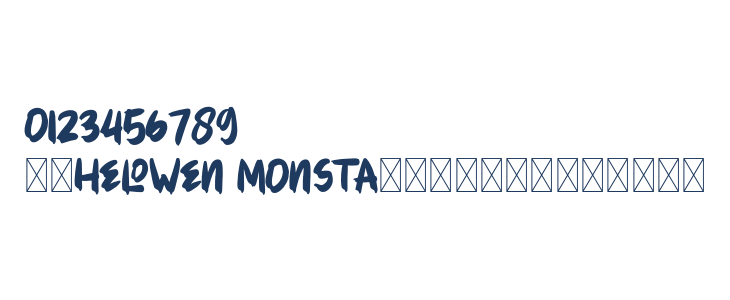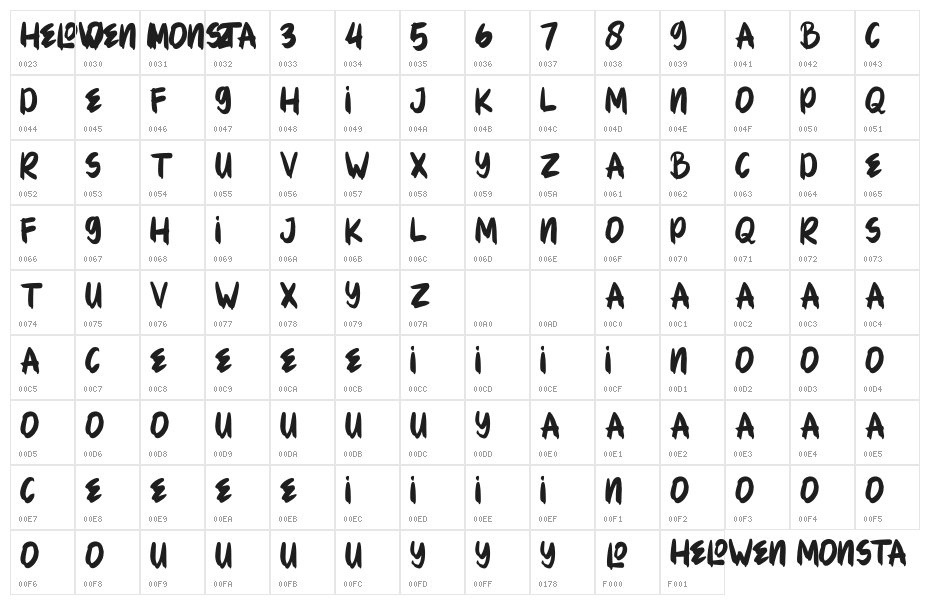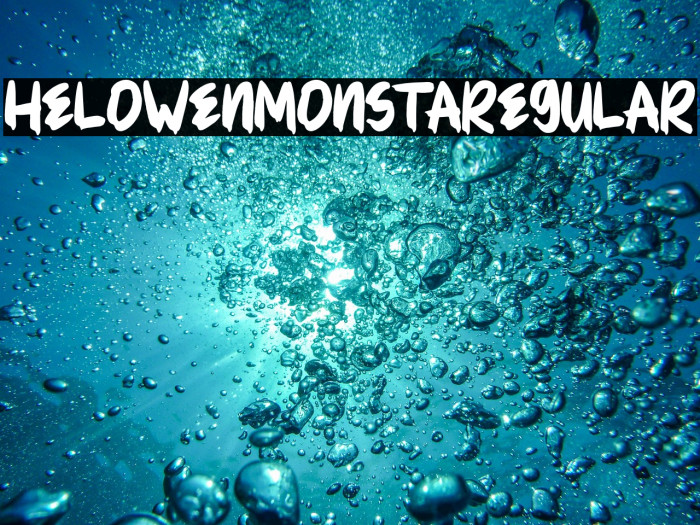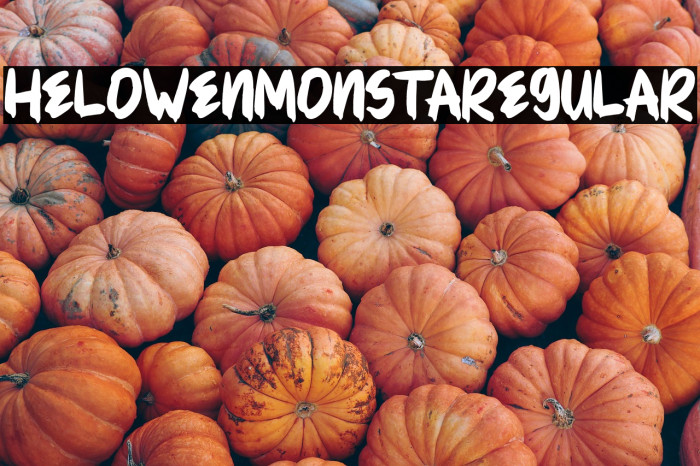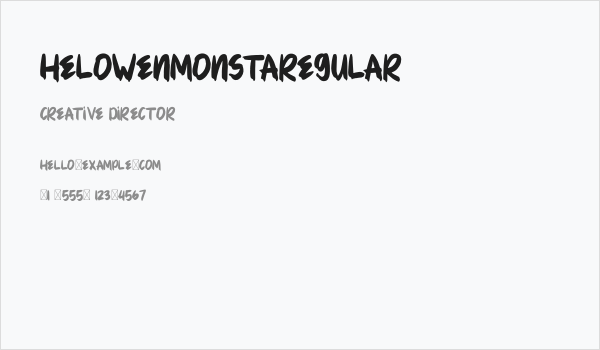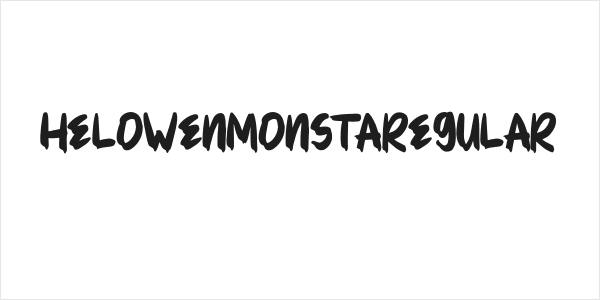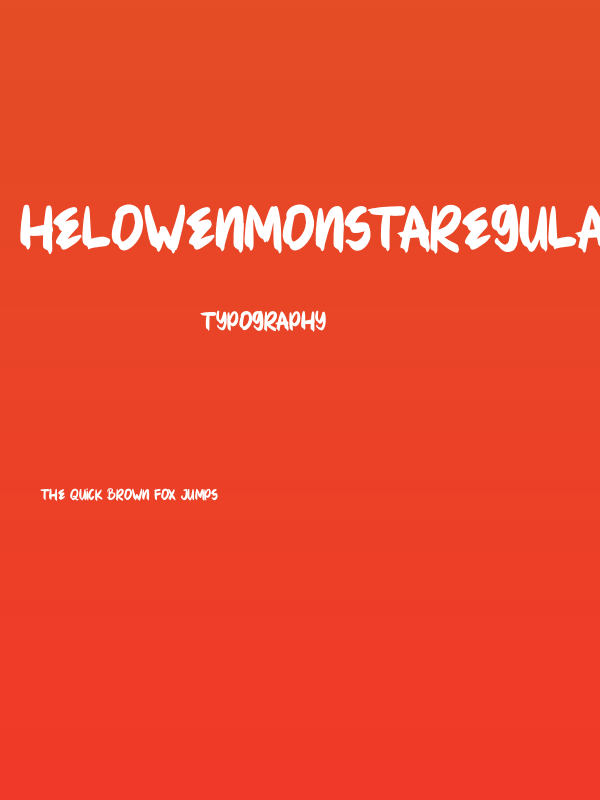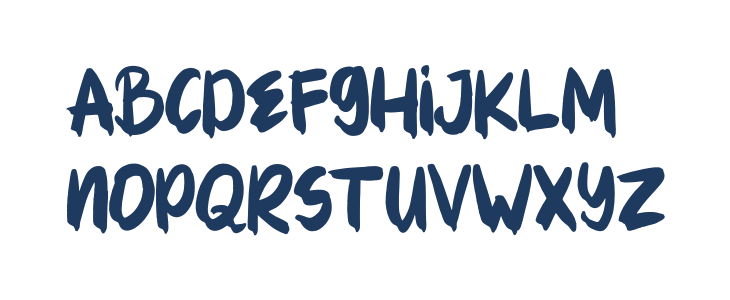
HELOWENMONSTARegular Font
HELOWENMONSTARegular Description
This font exhibits a bold and dynamic style, characterized by thick, brush-like strokes that convey a sense of energy and movement. The uppercase and lowercase letters maintain a consistent weight, creating a cohesive look. The numerals are equally bold, ensuring they stand out prominently. The overall design is playful yet assertive, making it suitable for attention-grabbing headlines or creative projects. The font's unique style is further emphasized by its slightly irregular shapes, adding a handcrafted feel. The special characters are designed with the same boldness, ensuring they integrate seamlessly with the rest of the typeface.
| Proposed Projects | Ideal for posters, branding, merchandise, and any project requiring a bold, artistic touch. |